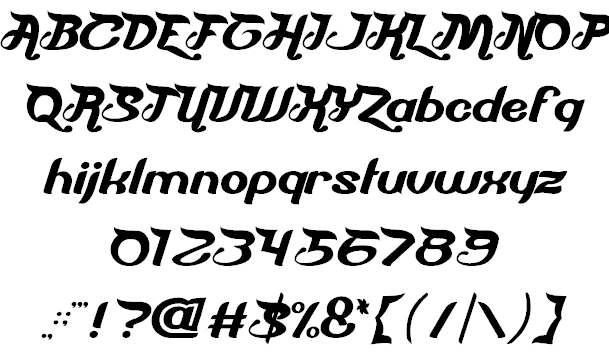
Free Everyone Heart Font
Introducing you to the absolutely beautiful free everyone heart font. This is a downloadable free typeface file brought to you by Font Space. Amaze your fellow designers and create stunning designs with this fancy font.